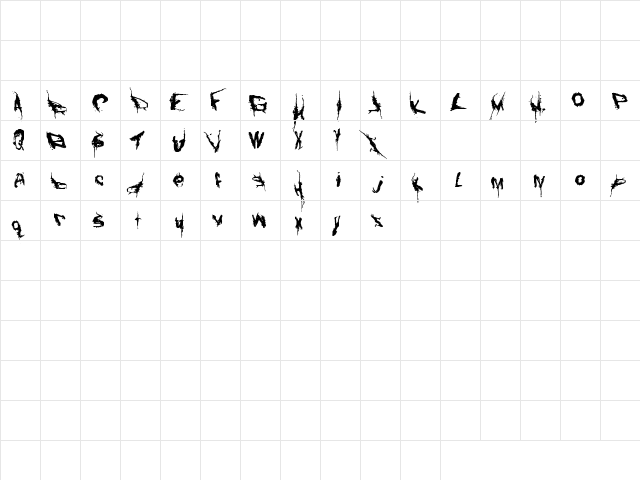
Convalescence Regular
Design Context for Convalescence Typeface
Convalescence is a composed and adaptable typeface that performs quietly and consistently across a wide range of design contexts.